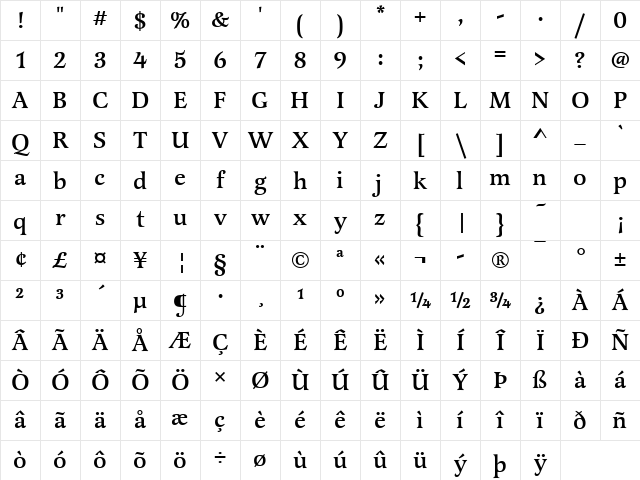
LatienneTMed Regular
Design Context for LatienneTMed
LatienneTMed is a composed and adaptable typeface that performs quietly and consistently across a wide range of design contexts.